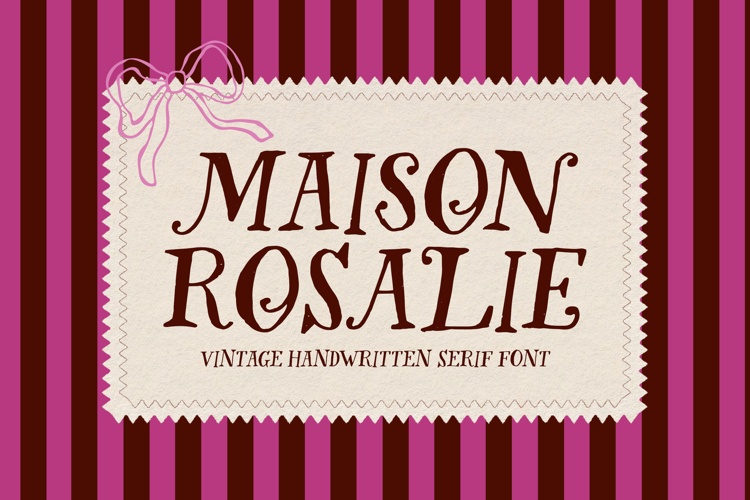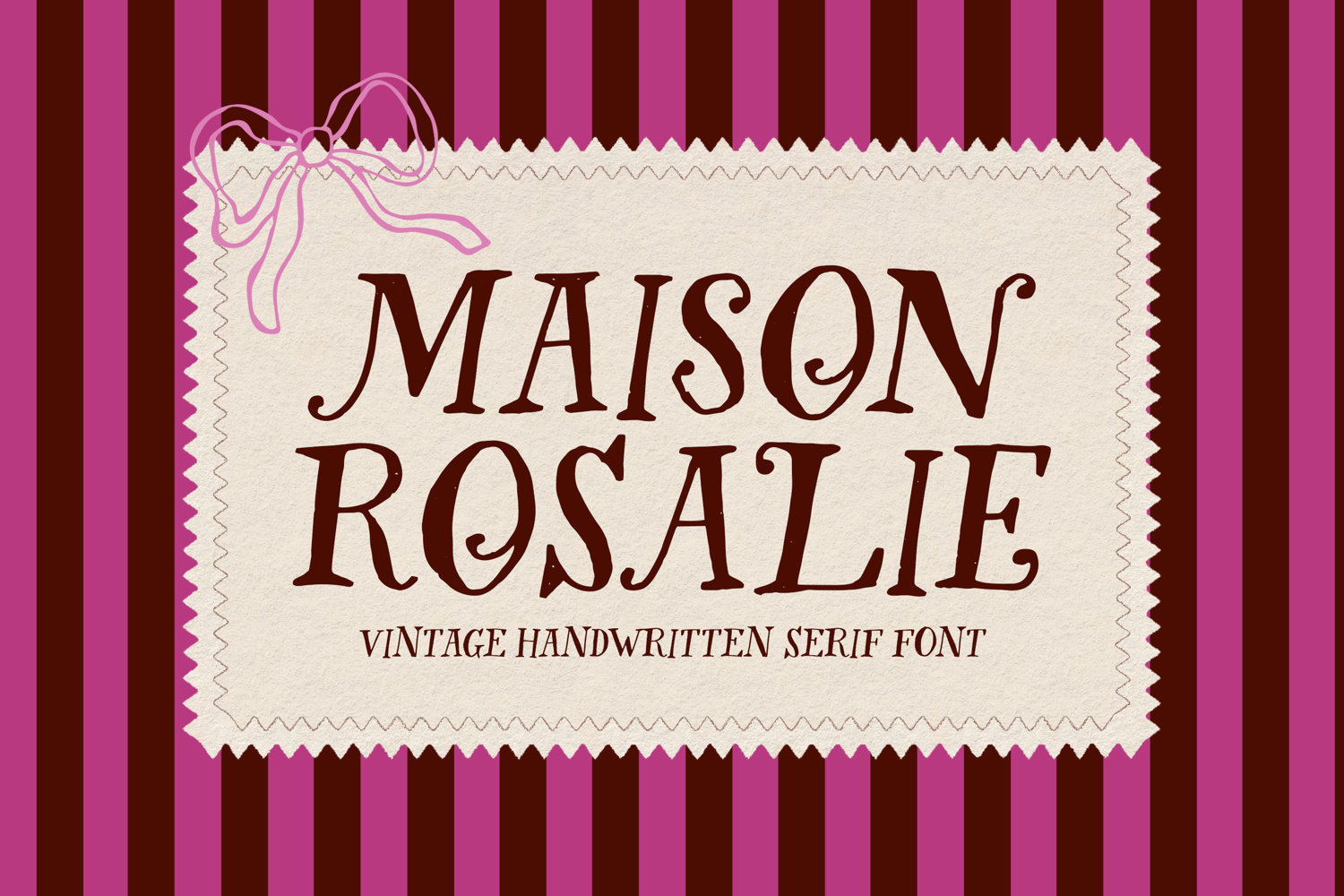
Maison Rosalie
Maison Rosalie is a vintage handwritten serif font inspired by timeless French boutiques, charming bakeries, and nostalgic mid-century aesthetics. Featuring gracefully imperfect strokes, delicate curls, and expressive serif details, it captures the warmth of handcrafted lettering while maintaining excellent readability. Whether you're designing bakery branding, artisan packaging, café menus, greeting cards, book covers, or romantic editorial layouts, Maison Rosalie adds an authentic touch of elegance with a playful vintage personality.
Designed to shine in both bold headlines and decorative typography, Maison Rosalie effortlessly brings character to logos, product labels, social media graphics, wedding stationery, apparel, posters, and creative merchandise. Its unique handcrafted style blends classic sophistication with whimsical charm, making it the perfect choice for designers seeking a font that feels nostalgic, artistic, and beautifully distinctive.